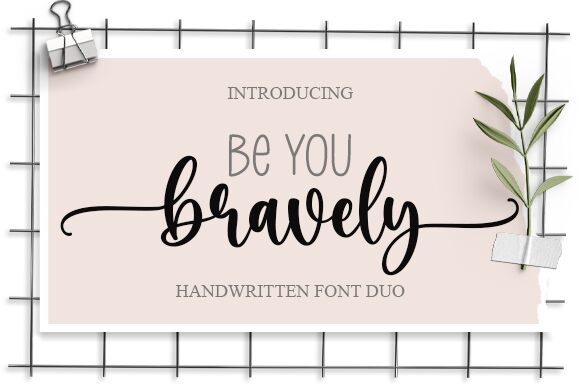
Bravely is a light calligraphy font designed by Aldi Raya Pradipta. Its delicate yet powerful strokes make Bravely the perfect choice for artistic projects such as wedding invitations, greeting cards, and stationery designs.
Bravely